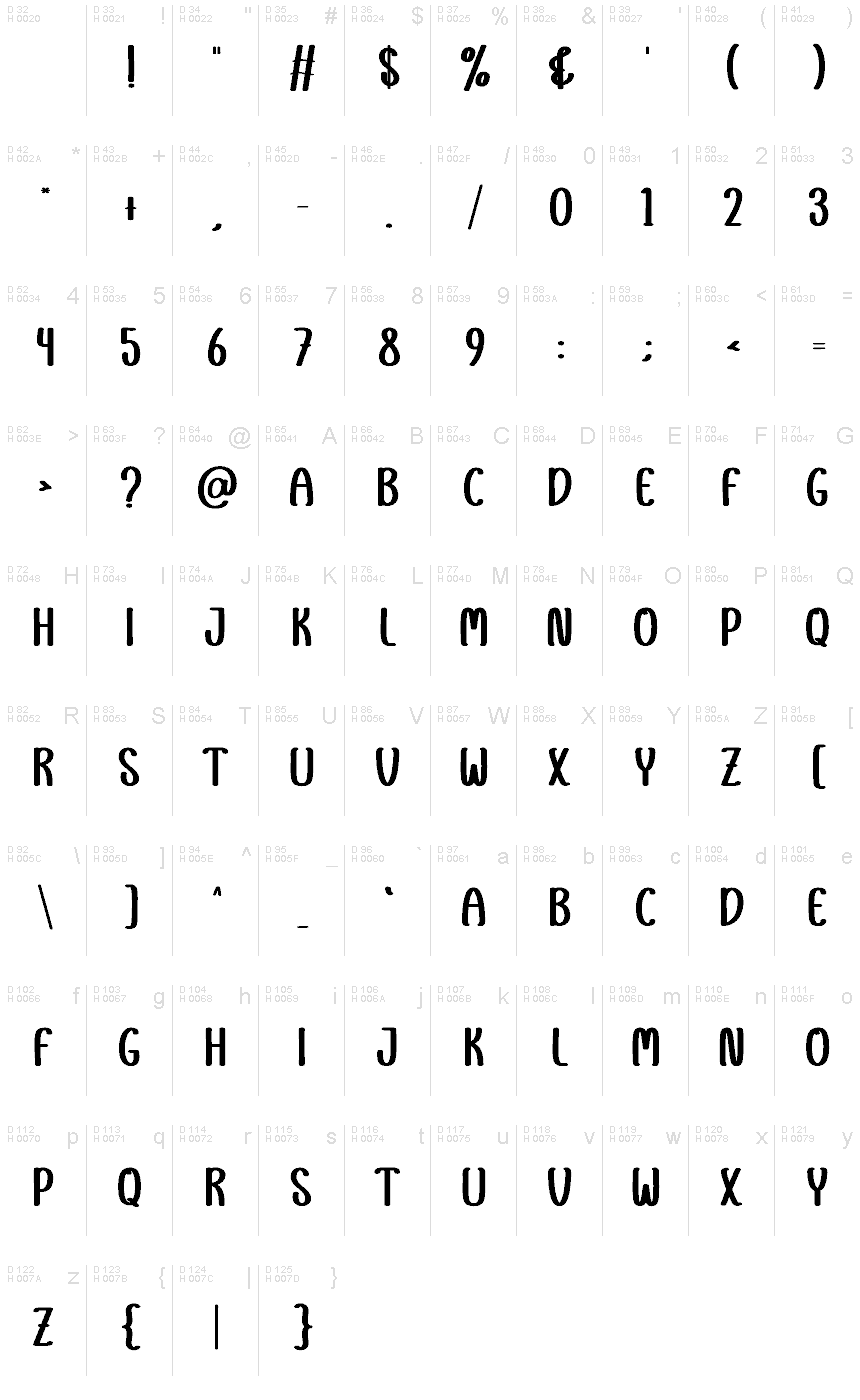
Calm
Calm font, designed by Andi Moz, is a handwritten and condensed font with a friendly and approachable style. The letters feature smooth rounded edges that make them easy on the eyes resulting in a casual modern appearance suitable for both printed and digital artworks.
Being a free handwritten font, Calm can offer many advantageous uses. It can be perfect for cards (birthday invitation cards), social media posts, website headers or sections, as well as brochures, posters, product labels, packaging designs and more.